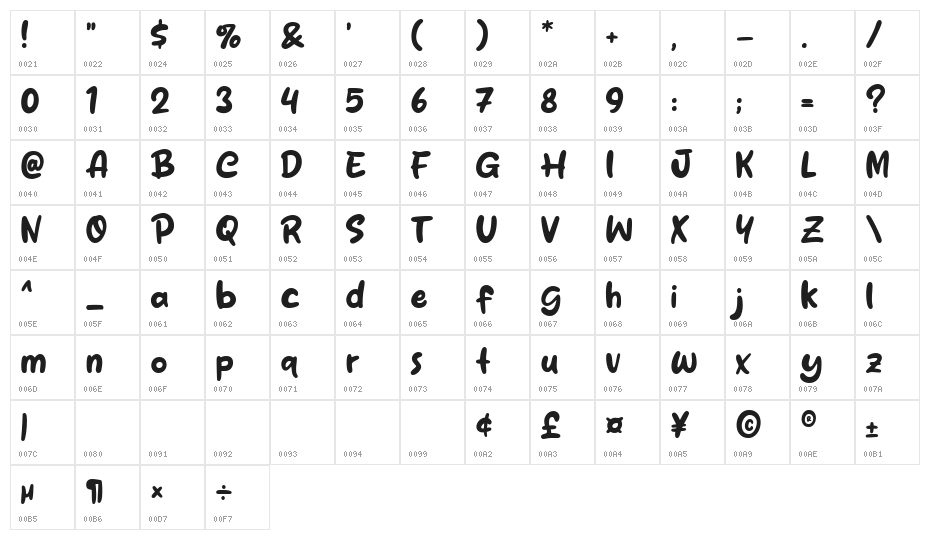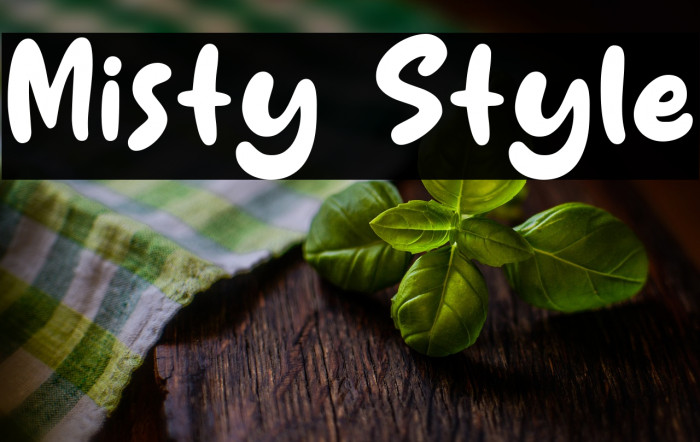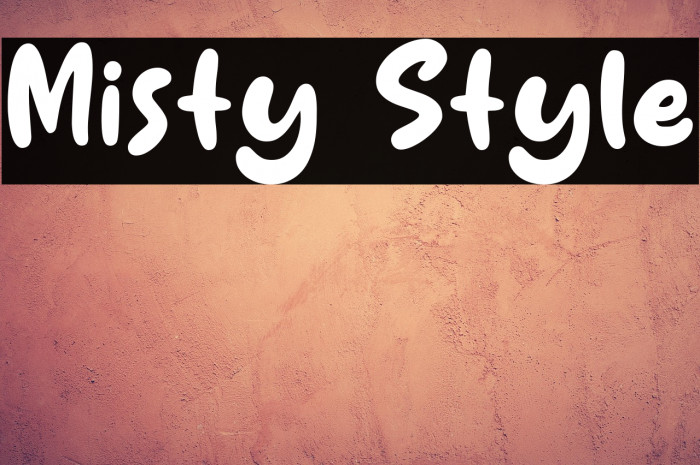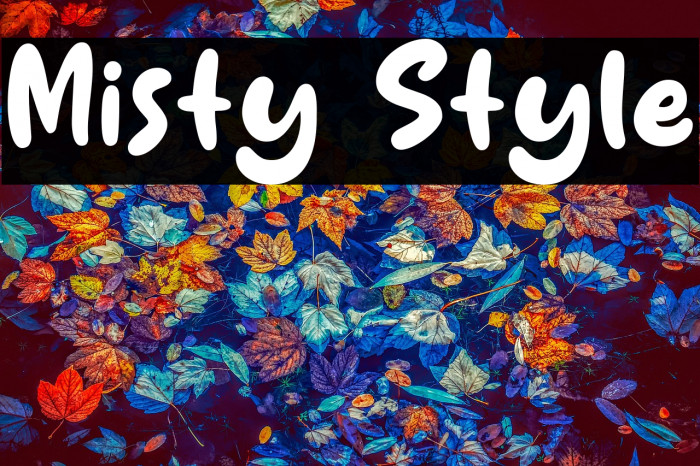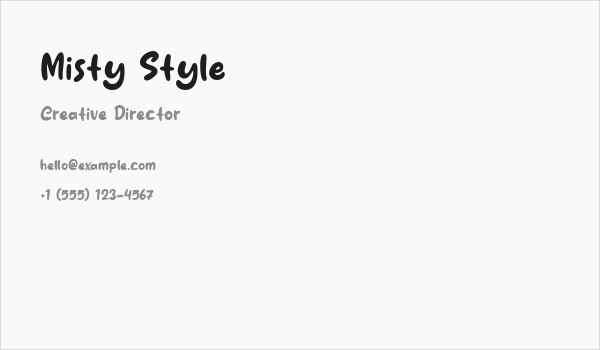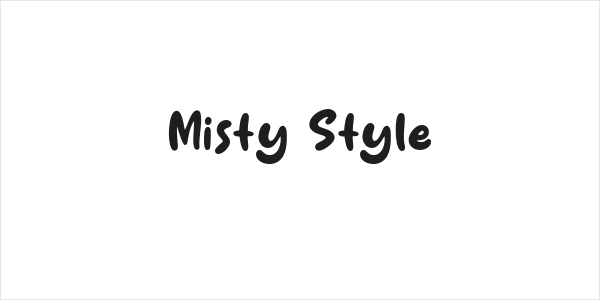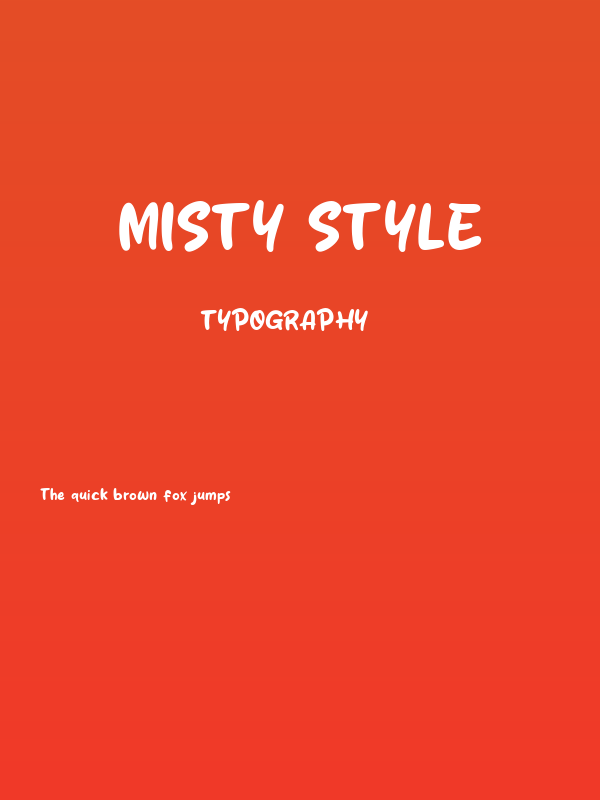
Misty Style Font
Misty Style Description
This playful and bold font features rounded, bubbly characters that exude a sense of fun and approachability. The strokes are thick and consistent, giving it a strong presence while maintaining a friendly and informal vibe. The letters are slightly irregular, adding a hand-drawn feel that enhances its whimsical nature. This font is perfect for projects that require a touch of personality and creativity, such as children's books, playful branding, or casual invitations. Its unique style makes it stand out, ensuring that any text is both eye-catching and memorable.
| Overall Style | Playful, Whimsical |
| Use Case | Headlines, Logos, Invitations |
| Proposed Projects | Ideal for children's books, playful branding, casual invitations, and creative projects. |